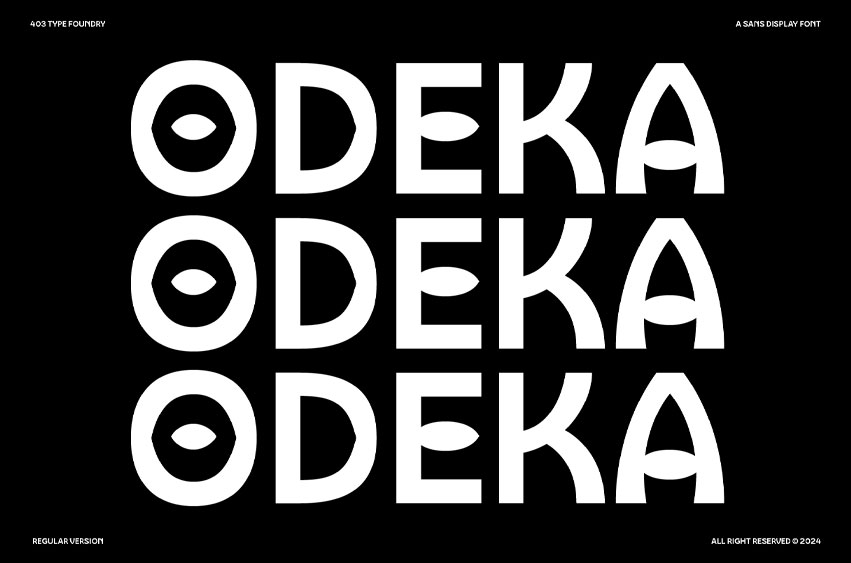
Odeka Regular Font
Odeka Regular Font is a striking sans-serif display font that brings a modern twist to your creative projects. Featuring unique eye-shaped counters, this typeface adds a distinctive flair to any design. Available slanted versions, Odeka offers versatility for a variety of applications. Whether you’re designing posters, crafting a brand identity, or creating impactful headlines, this font delivers clarity and style.